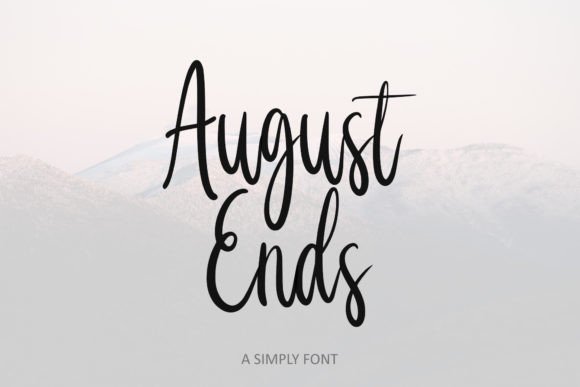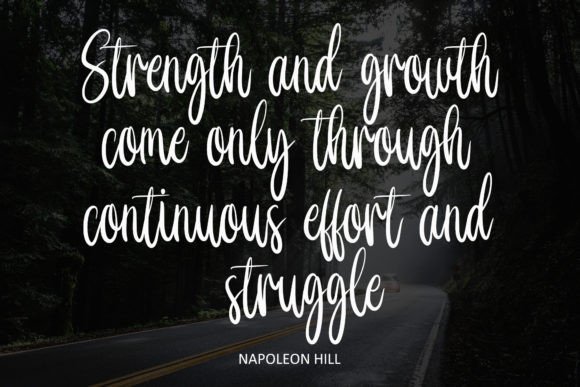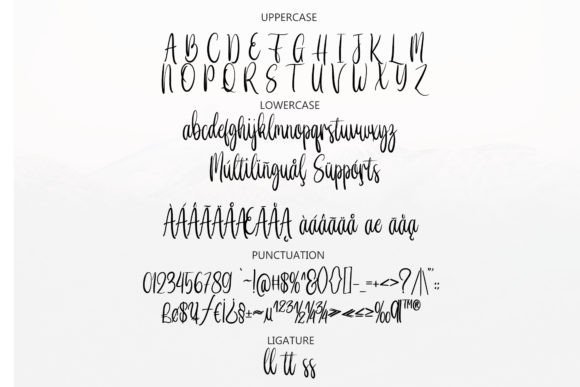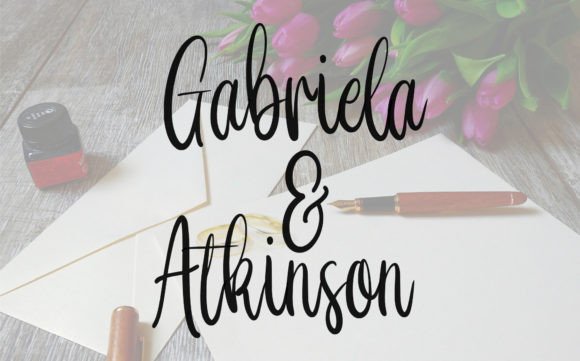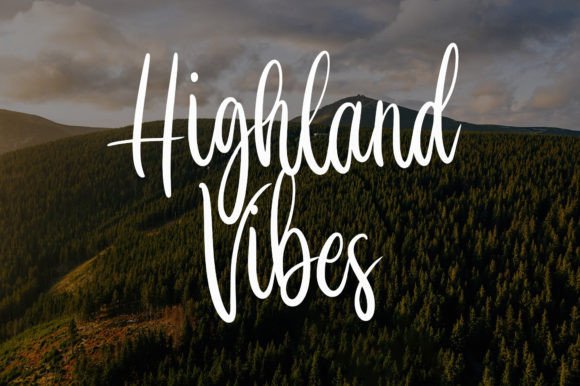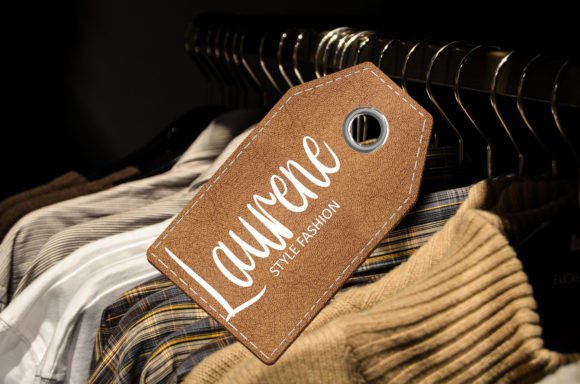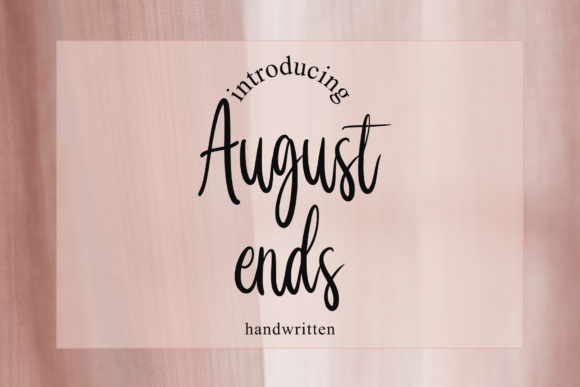
Discover the Elegance of August Ends Font
As a designer, I’ve had my fair share of moments where finding the perfect font felt like searching for a needle in a haystack. I recall working on a project for a client’s summer wedding invitation, determined to capture the essence of late August. The challenge was real – I needed a font that was both simple and elegant, something that could convey the calm and transitional feel of the season. That’s when I stumbled upon the “August Ends” font, and it was love at first sight! 💕
A Versatile Typeface for Every Project
“August Ends” is a beautifully crafted font that combines the best of both worlds: a clean, straightforward style and a fluid, script option. This versatility makes it perfect for a wide range of projects, from personal invitations to professional branding. Whether you’re a designer, crafter, or creative hobbyist, this font is sure to become a staple in your collection.
• ✨ Effortless elegance: “August Ends” exudes sophistication and poise, making it perfect for high-end projects.
• ✅ Versatility: With both a clean and script option, this font can adapt to any design style or theme.
• 💡 Instant recognition: The unique letterforms and fluid lines make it easy to recognize and remember.
While “August Ends” is an exceptional font, there are a few things to keep in mind:
• 🤔 Limited use of all-caps: Some letters may appear a bit awkward in all-caps, so it’s best to use it in mixed case or title case.
• ⚠️ Glyph compatibility: Make sure to check the font’s compatibility with certain glyphs or special characters before using it in your project.
The Story Behind August Ends Font
The story behind “August Ends” is one of inspiration and creativity. According to the designer, the font was inspired by the warm, golden light of late August. The goal was to capture the essence of this transitional season, where summer’s warmth begins to fade into autumn’s coziness. The result is a font that exudes calmness, sophistication, and elegance.
Q: Is August Ends Font suitable for body text?
A: While “August Ends” is an elegant font, it’s best suited for headings and titles. For body text, consider using a more readable font.